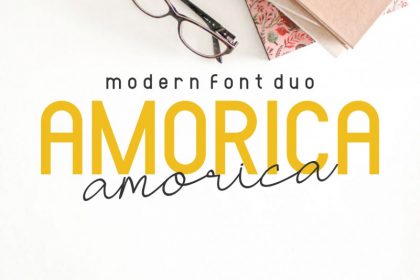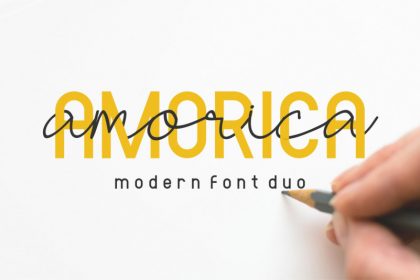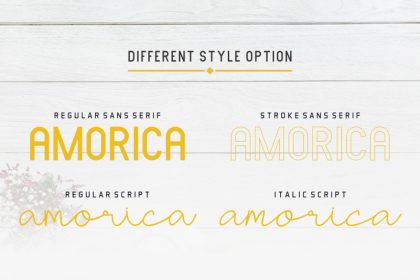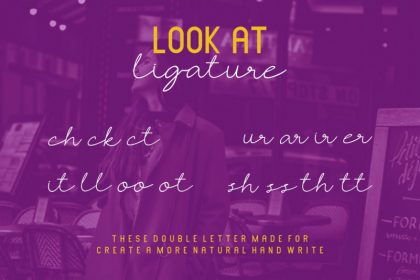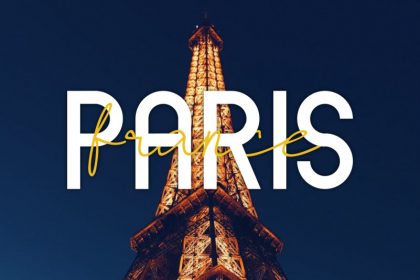
AMORICA Font Duo
What’s up everybody?! Introducing our newest font : AMORICA Font Duo! You’ll get 4 (FOUR) fonts : Sans, Stroke, Script and Italic Script. This is a new modern script handwriting script font with stylish signature style font. It has a fresh, elegant, natural and stylish glyph. Remember, you’ll get 4 FOUR fonts by buying only one this font!
AMORICA Script Font Quartet